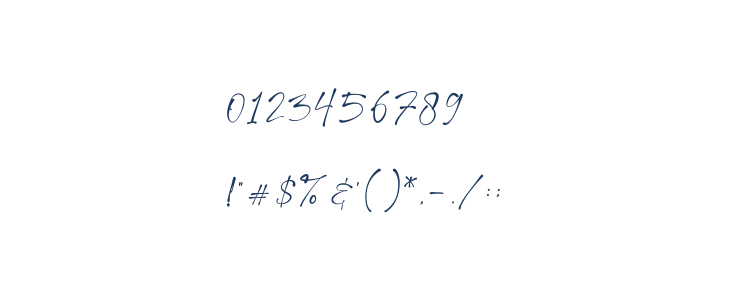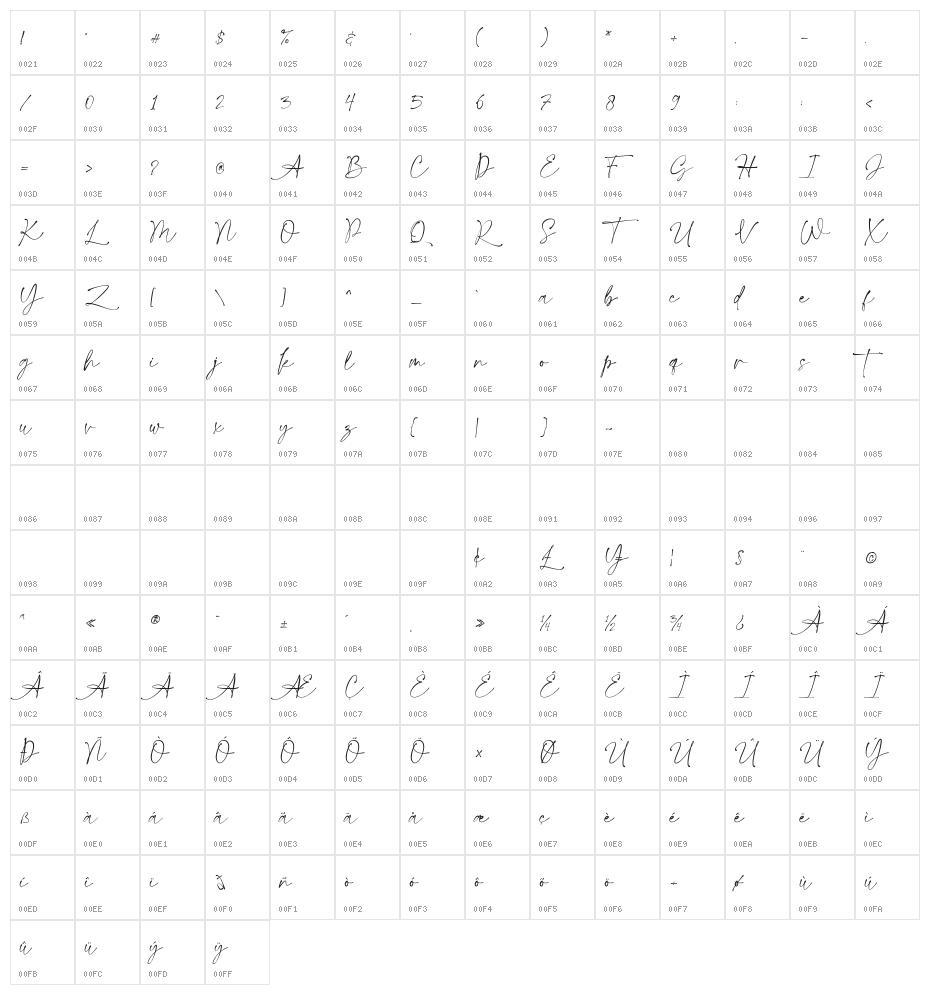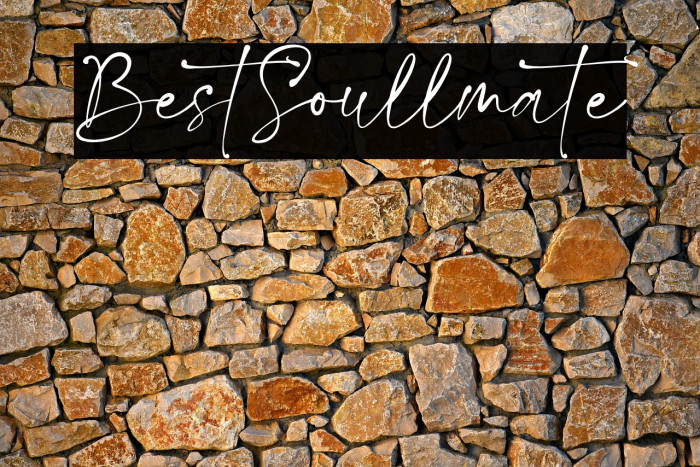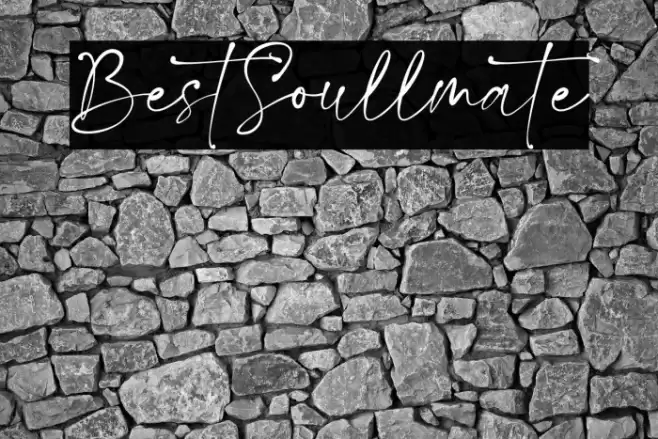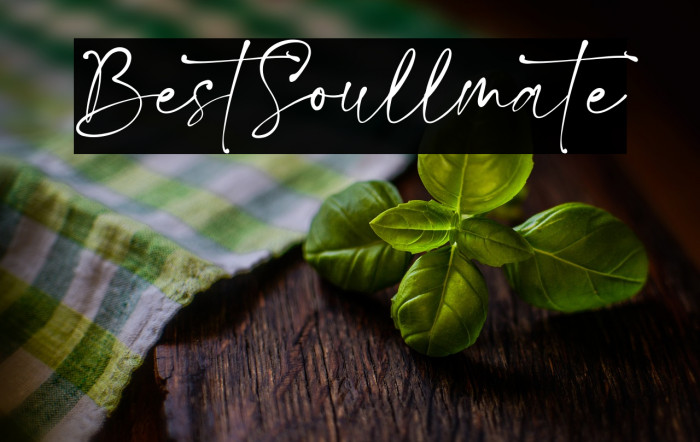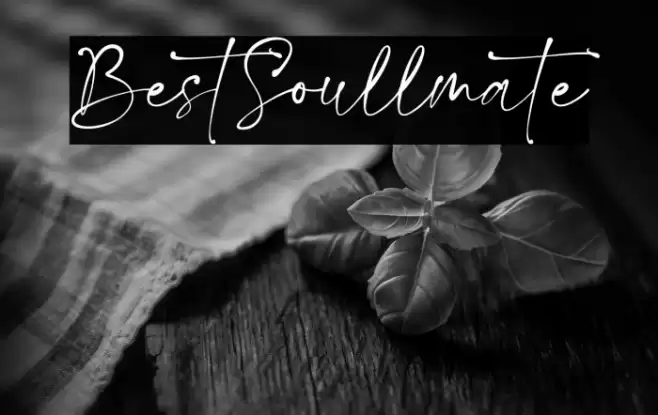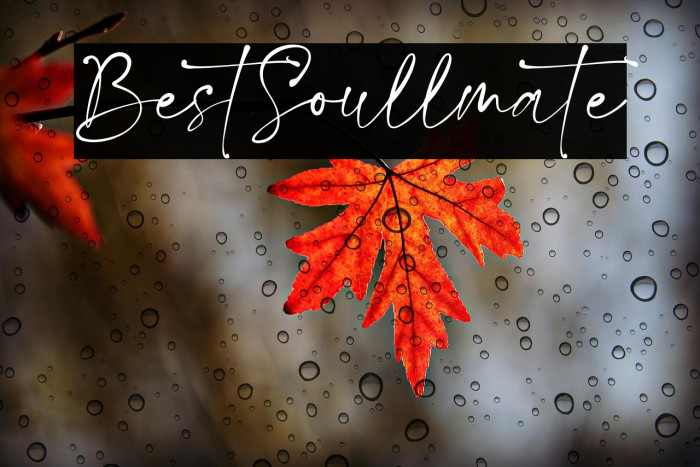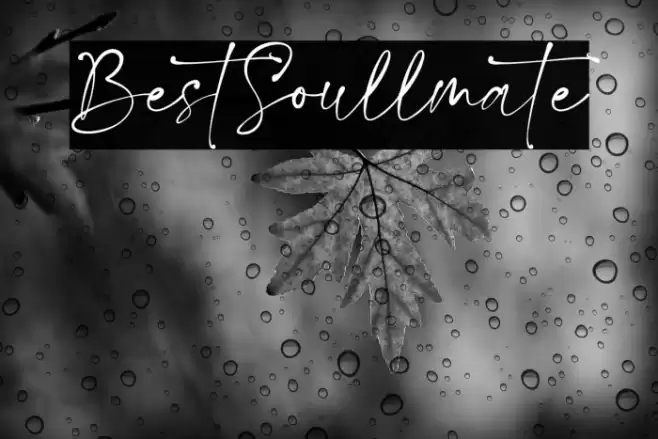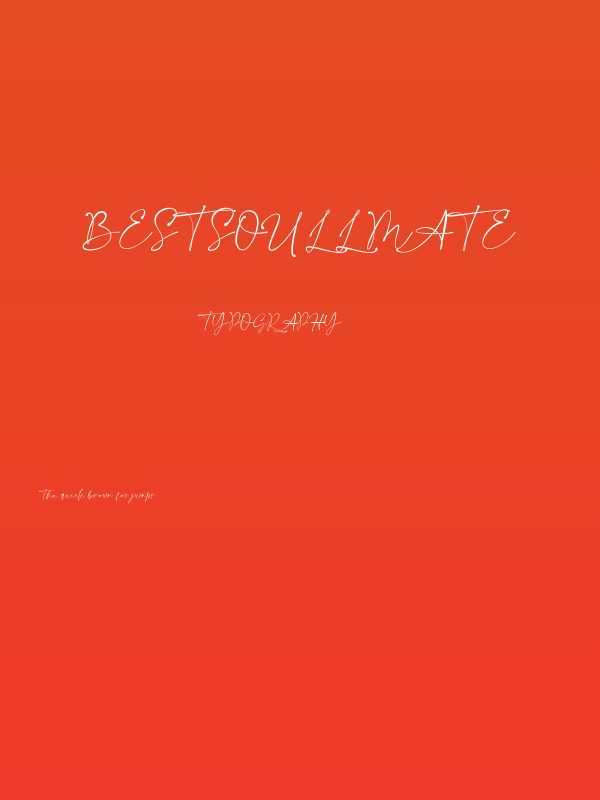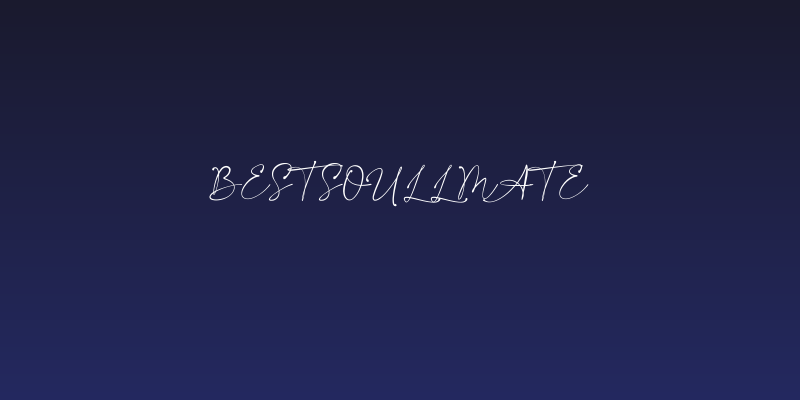
BestSoullmate Font
BestSoullmate Description
This font exhibits a flowing, cursive style that mimics elegant handwriting. The characters are interconnected, creating a seamless and fluid appearance. The uppercase letters are slightly more embellished, with graceful loops and swirls, while the lowercase letters maintain a consistent, smooth flow. The numbers and special characters are designed to match the overall aesthetic, with a playful yet sophisticated touch. This font is perfect for projects that require a personal, intimate feel, such as invitations, greeting cards, or branding that aims to convey elegance and warmth.
| Use Case | Headlines, Invitations, Branding |
| Proposed Projects | Ideal for wedding invitations, personal branding, greeting cards, and elegant stationery. |